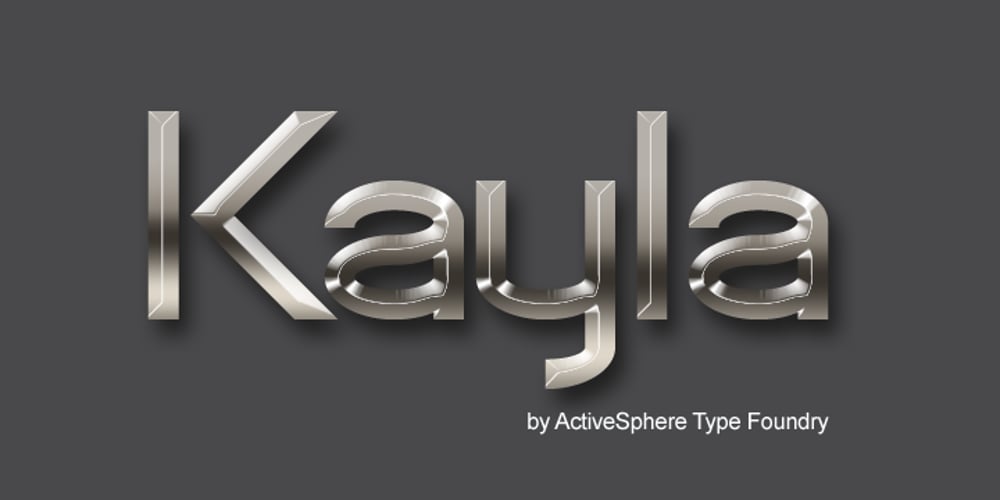
Kayla Sans Font Family was designed by Ronnie Dela Cruz and published by ActiveSphere. Kayla Sans contains 6 styles and family package options. Kayla Sans is a sans-serif display font and works best in display applications, such as headline, magazine, posters, product branding, corporate branding, signage, logos and titles. Each style has a full upper and lower-case, accents, punctuation and a selection of monetary symbols.